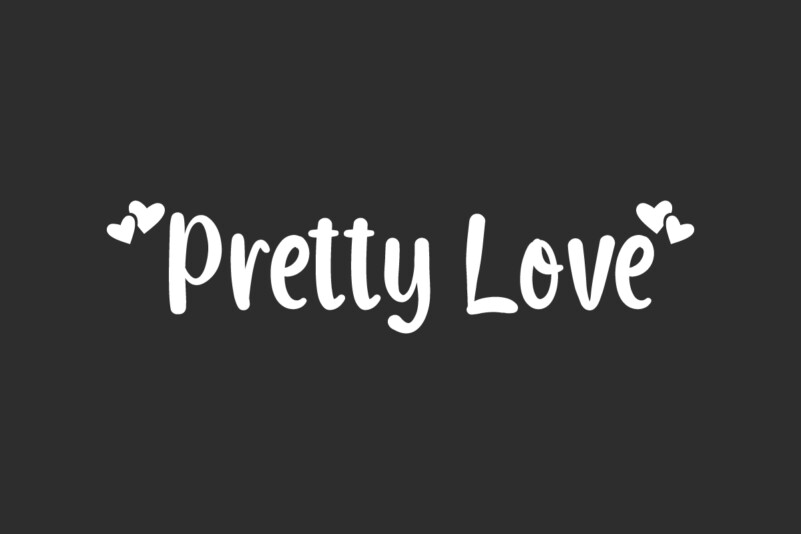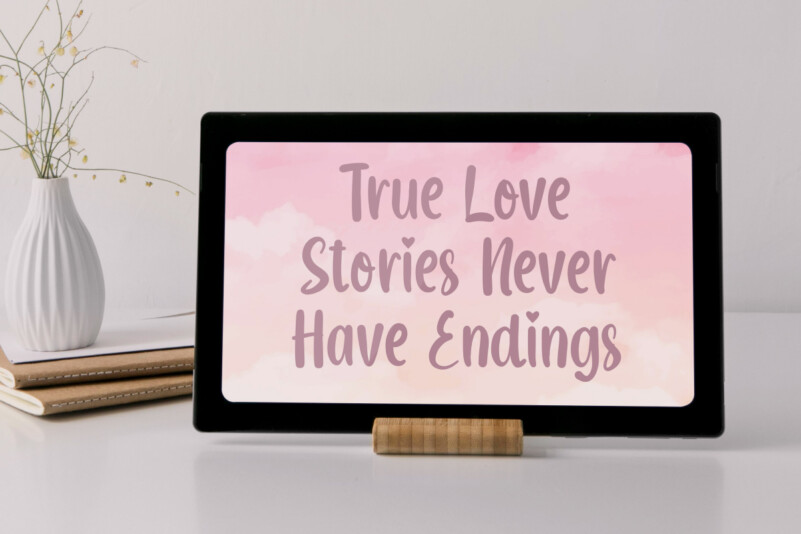
Pretty Love Font
Pretty Love Font is a lovely handwritten display font with playful fun style. This font has a beautiful handwritten look that will blend in perfectly with any design you create, such as brand logo, brochure, business card, custom design, frame art, invitation, label, packaging design, poster, quote, screen printing, signage, stationery, website, and more!
Pretty Love Font includes full set of Uppercase and Lowercase Basic Characters, Numerals and Punctuation. This font also contain Swoosh characters that will attract attention and make your company look attractive, such as advertisement, beauty product, event or wedding organizer, fashion, florist, handicrafts, homeware, printing, publishing, spa and salon, etc.